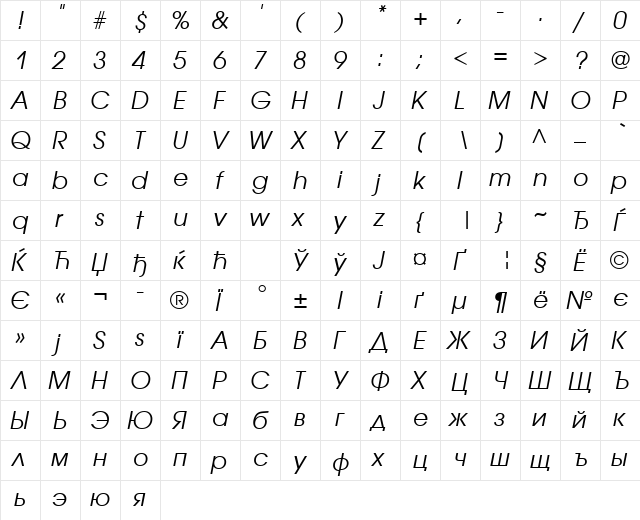
AvantGardeGothicCTT Italic
Design Context for AvantGardeGothicCTT Typeface
AvantGardeGothicCTT has the quiet confidence of well-executed sans-serif typography: versatile, unobtrusive, and dependable at any size. Its italic angle brings a sense of urgency and motion to the letterforms.